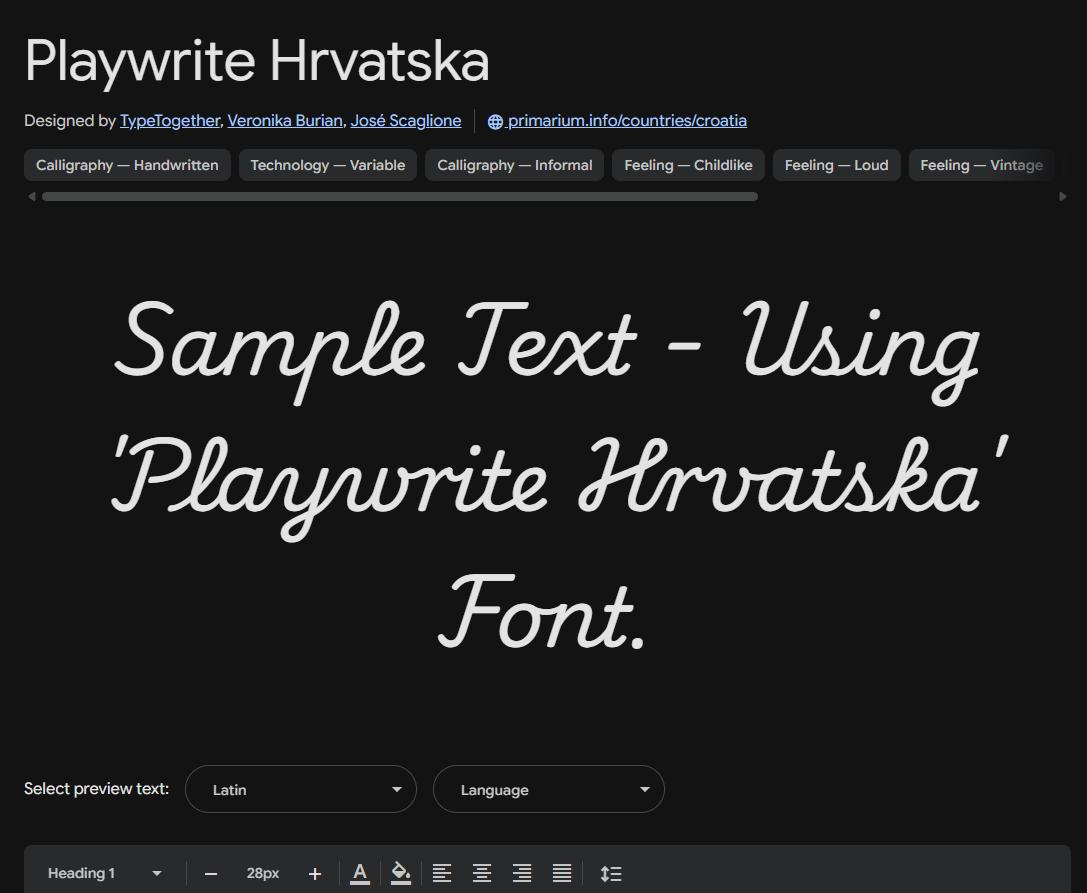
Playwrite Hrvatska represents a sophisticated intersection of pedagogical tradition and modern variable font technology, meticulously engineered by Veronika Burian and José Scaglione of TypeTogether to align with Croatian primary education standards. This single-axis variable typeface leverages a dynamic weight range to optimize stroke modulation and legibility across diverse digital environments, ensuring that the transition from analog cursive to screen-based literacy remains semantically consistent for young learners. By distilling complex handwriting movements into a singular interpolation string, the font provides developers and educators with precise control over glyph density and optical clarity, effectively bridging the gap between historical ductus patterns and contemporary CSS-driven typographic flexibility.
Playwrite Hrvatska functions as a sophisticated variable font solution that meticulously digitizes the informal, handwritten calligraphy of Croatian pedagogical standards, merging a vintage, rugged aesthetic with modern typographic adaptability. This typeface family excels in delivering a loud and happy visual narrative, utilizing fluid strokes that evoke a playful, childlike innocence while maintaining the structural integrity required for diverse digital applications. By harnessing variable technology to manipulate weight and slant axes, the font transforms the traditional, often static nature of educational scripts into a dynamic toolset that preserves the unique, tactile essence of regional penmanship. The resulting design is a semantically rich asset where the intersection of professional type engineering and expressive, informal letterforms creates a versatile environment for high-impact communication that feels both nostalgic and technologically advanced.
While Playwrite Hrvatska, engineered by Veronika Burian and José Scaglione of TypeTogether, excels in pedagogical contexts reflecting Croatian cursive traditions, its inherent calligraphic morphology makes it critically unsuitable for high-density data environments, such as pharmaceutical labeling or complex financial ledgers, where rapid legibility and glyph distinction are paramount. Despite the versatility offered by its single-axis variable weight, the continuous-stroke DNA and rhythmic kerning typical of this script family introduce significant cognitive load and potential character ambiguity in low-resolution digital interfaces or safety-critical documentation. In professional sectors governed by strict accessibility standards like WCAG, the font's ornamental flourishes and lack of distinct vertical stress fail to provide the optical stability required for technical manuals or legal contracts, where sans-serif neutrality is necessary to prevent misinterpretation of vital alphanumeric strings.
Playwrite Hrvatska is specifically designed to mimic primary school cursive, making it an excellent choice for educational worksheets and handwriting practice. By adhering to the Hrvatski školski krasopis standards, the font ensures that letterforms align with local pedagogical requirements for stroke sequence and letter joins.
The font family fully supports the Croatian Latin alphabet, including all necessary diacritics like č, ć, đ, š, and ž. Integration of these glyphs is essential for maintaining linguistic accuracy in localized materials, utilizing specific Unicode ranges designated for Central European Latin.
This script font provides a warm, humanistic contrast when paired with clean, geometric sans-serifs for a balanced visual hierarchy. Designers often achieve high aesthetic scores by leveraging the font's organic stroke variation against the fixed x-height and low contrast of modern neo-grotesque faces.
While highly legible for a script, its cursive nature is generally better suited for short instructional blocks rather than extensive long-form reading. Extended reading speed may decrease due to the continuous cursive connections, which lack the vertical rhythm found in standard serif or sans-serif body fonts.
In mobile UI, Playwrite Hrvatska excels as a decorative element or for personalized messaging where a hand-drawn feel is desired. Performance on high-density displays is optimized through its clean vector paths, though developers should monitor anti-aliasing artifacts at font sizes below 14 pixels.
The Playwrite series typically offers variable font technology or specific weights to allow for flexibility in design layouts. Utilizing a variable font axis for weight allows for precise control over stroke thickness, ensuring consistent luminance across different screen resolutions.
The font relies heavily on OpenType features to create seamless connections between letters that mimic natural handwriting. Sophisticated GSUB (glyph substitution) tables are employed to automatically adjust tail lengths and joinery based on the preceding and following characters.
Its high-fidelity vector construction makes it perfectly suitable for large-scale print applications like banners, stationery, and logos. The font maintains sharp edges even when scaled to 600 DPI, preventing the pixelation often seen in lower-quality script digitizations.
Tight character spacing is intrinsic to its cursive design, which can lead to legibility issues if the font size is too small. Implementing a slight increase in CSS letter-spacing can mitigate the crowding effect caused by the font's high-density cursive links at small optical sizes.
Playwrite Hrvatska is a powerful choice for creative display headings that require an authentic, personal, or educational tone. Its distinctive letterforms provide a high degree of visual flavor, effectively capturing user attention through its unique calligraphic rhythm and localized stylistic alternates.